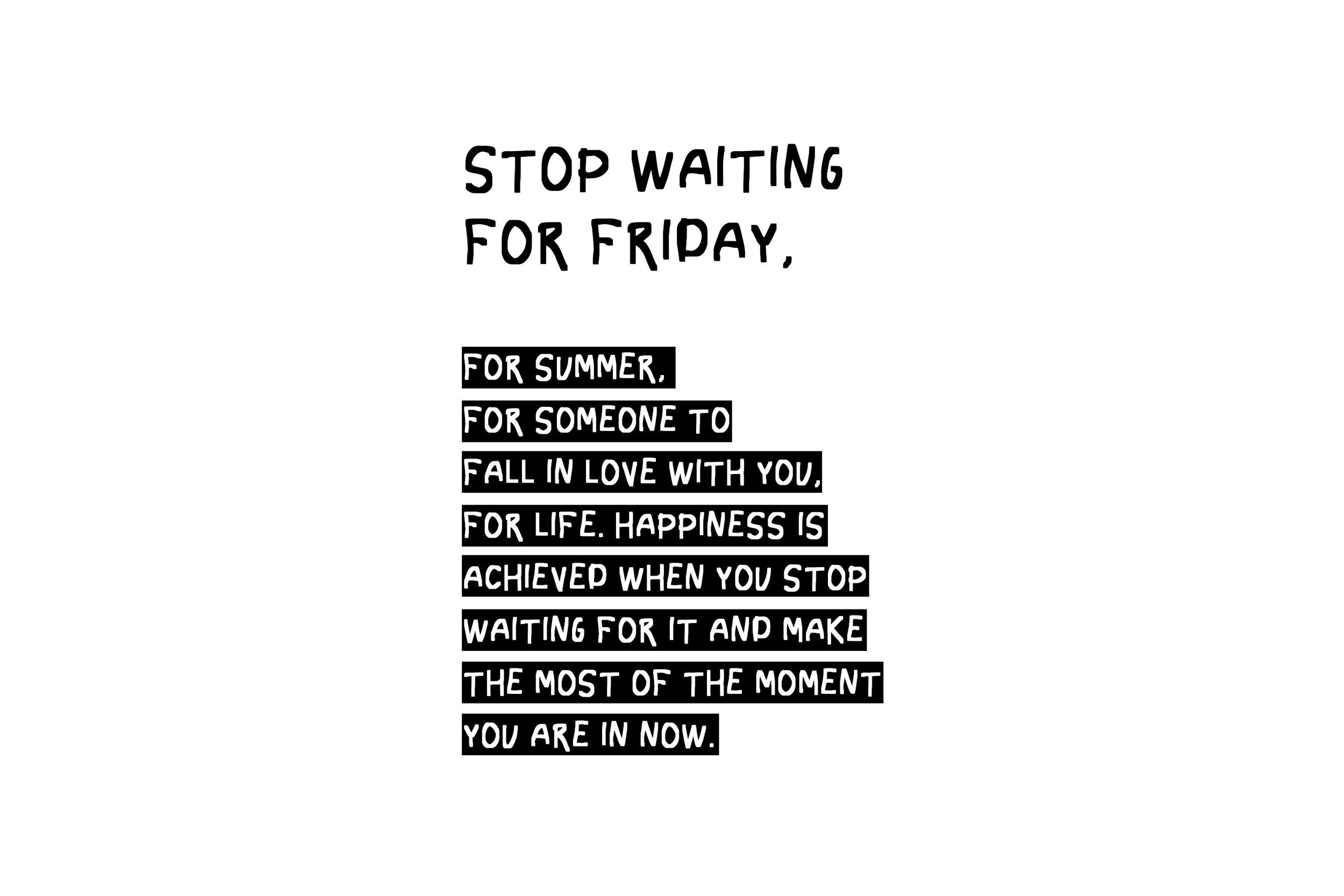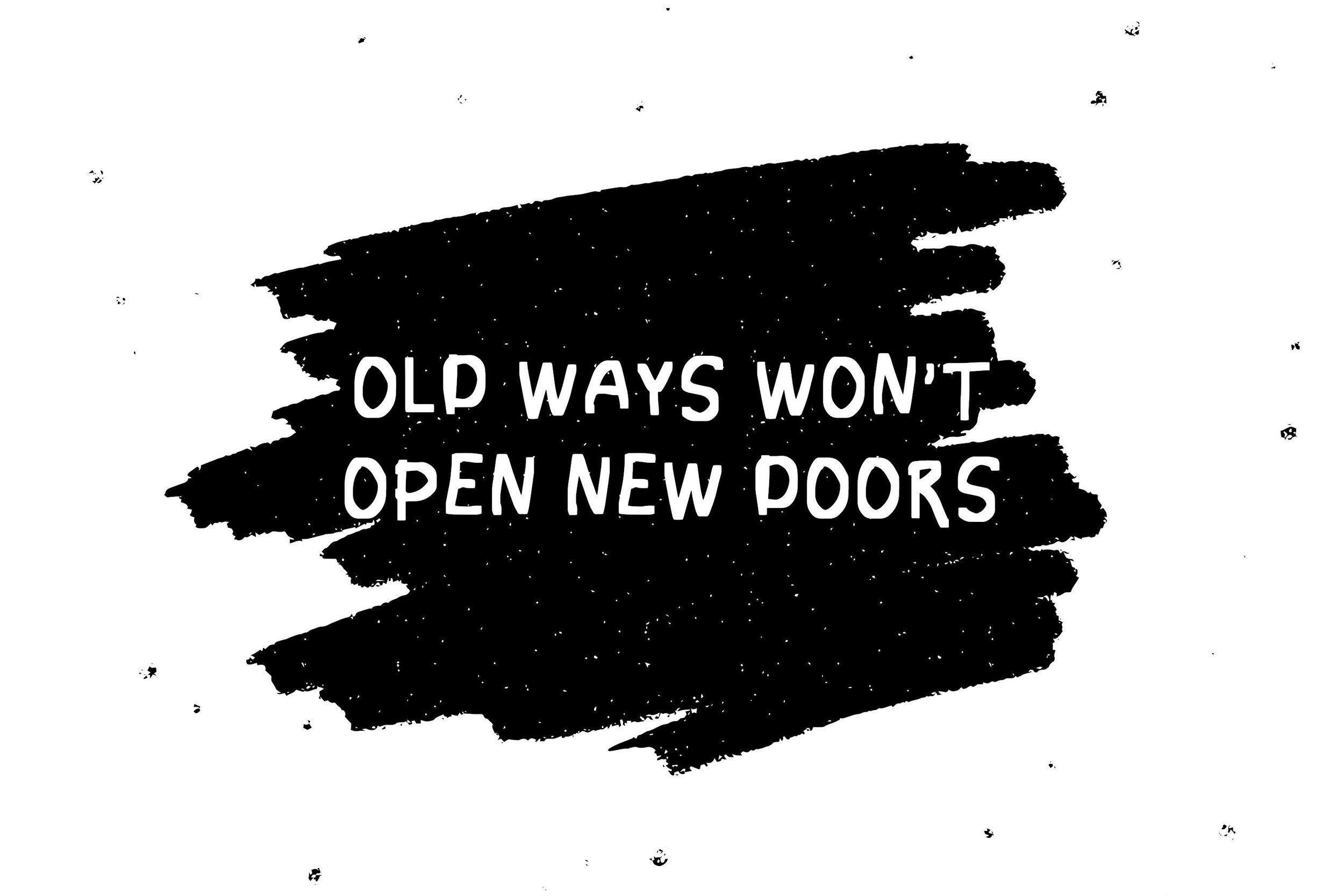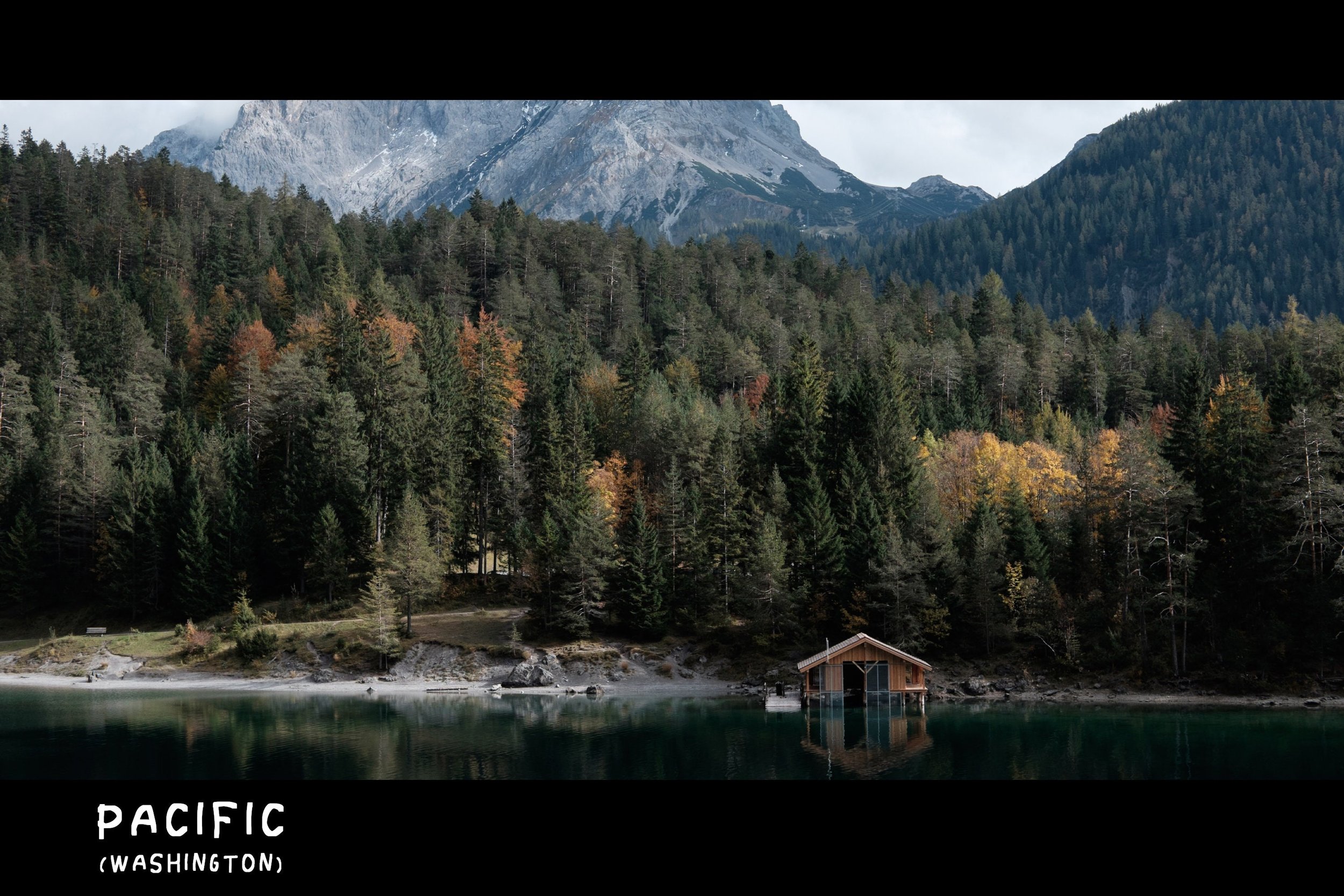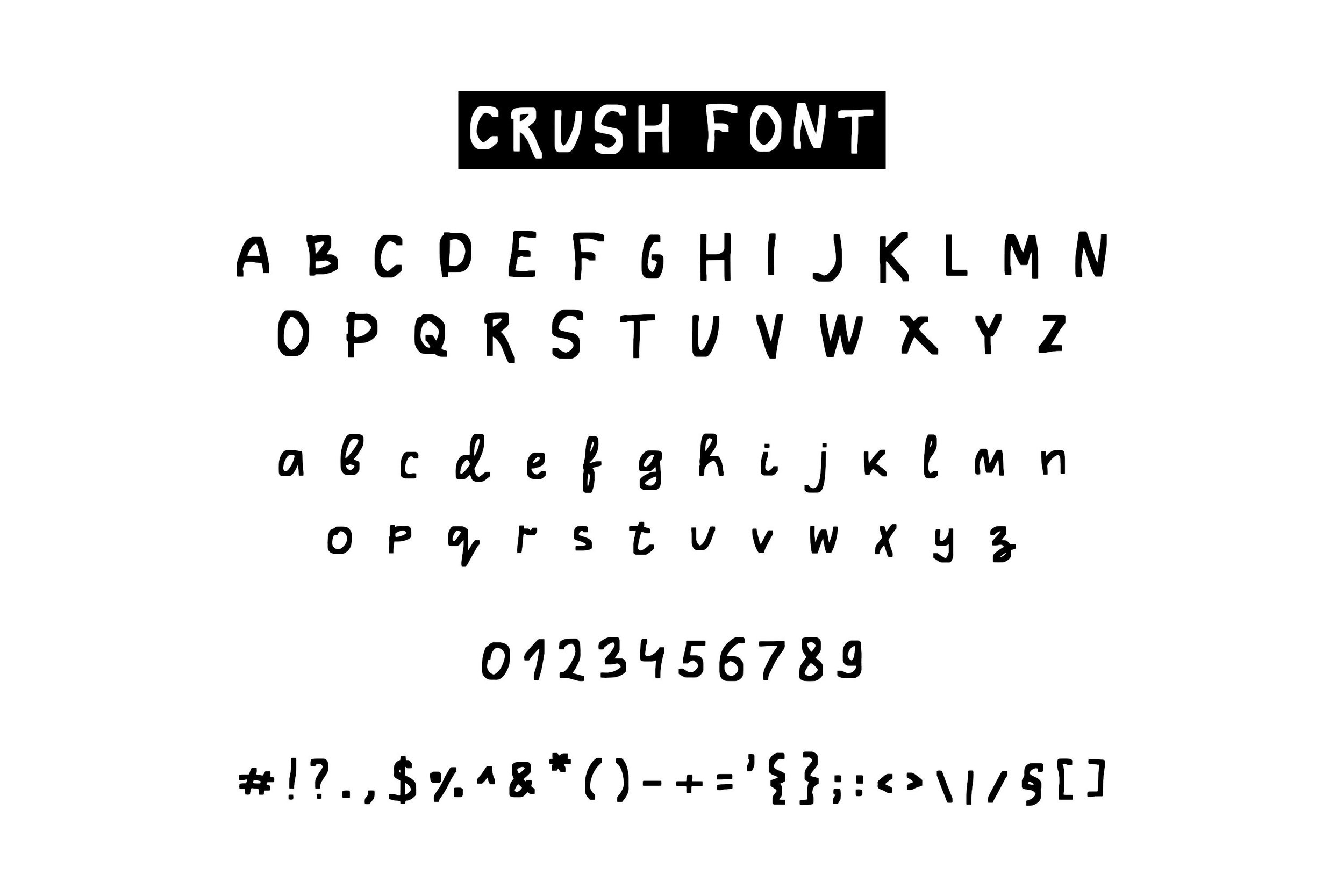
Shop › Crush - Playful Font Image 1 of 5 Image 2 of 5 Image 3 of 5 Image 4 of 5 Image 5 of 5 Crush - Playful Font $19.00 Add To Cart Added! Introducing the Crush font. Simple and fine. Hand lettered brush font perfect for headlines, titles, quotes, branding, etc.What you get?Crush font containing upper & lowercase characters, punctuation and numerals (OTF).Language support: Currently only English is supported.If you've got any questions, feel free to contact me.I hope you enjoy it!Elvina Introducing the Crush font. Simple and fine. Hand lettered brush font perfect for headlines, titles, quotes, branding, etc.What you get?Crush font containing upper & lowercase characters, punctuation and numerals (OTF).Language support: Currently only English is supported.If you've got any questions, feel free to contact me.I hope you enjoy it!Elvina